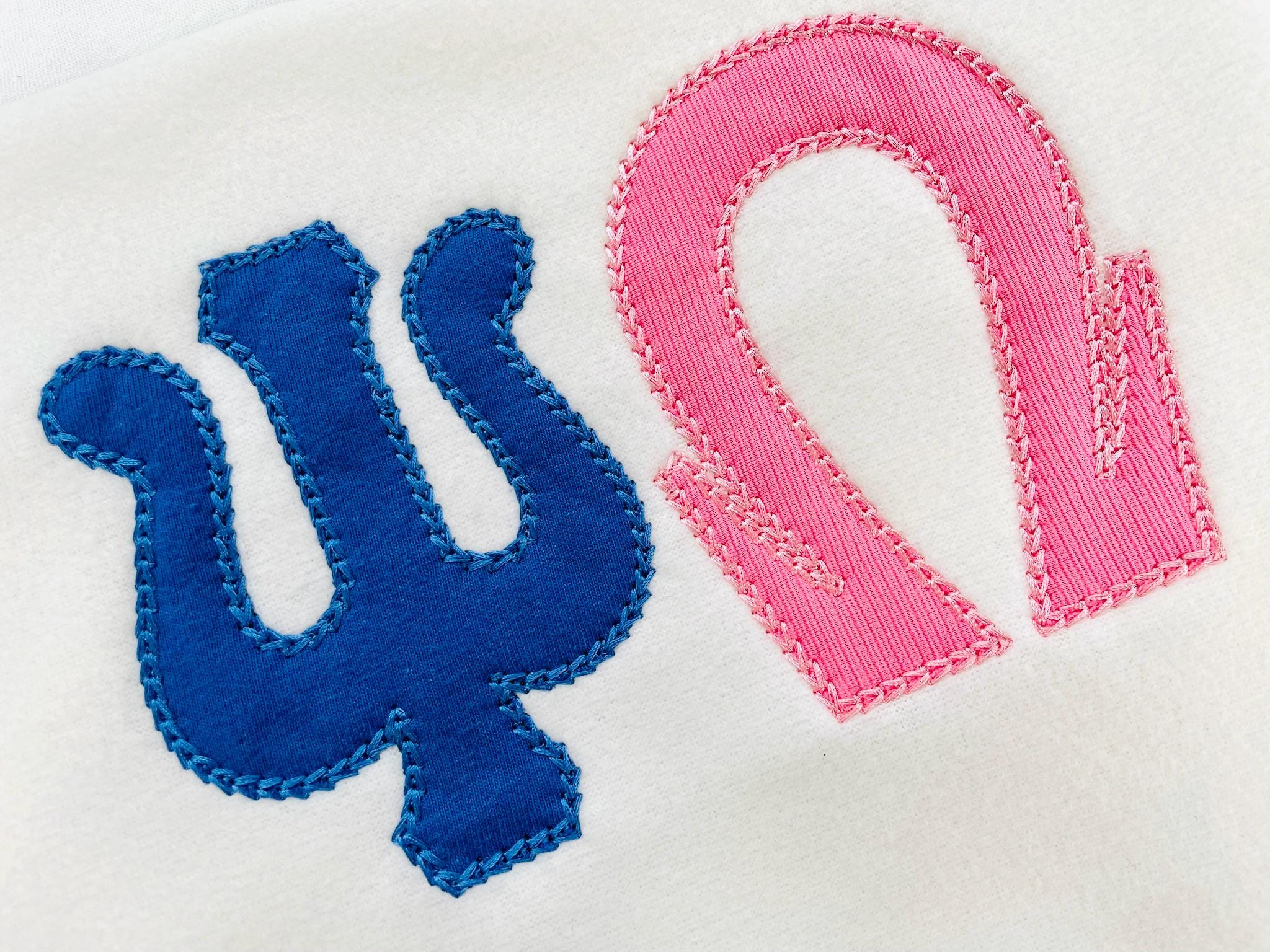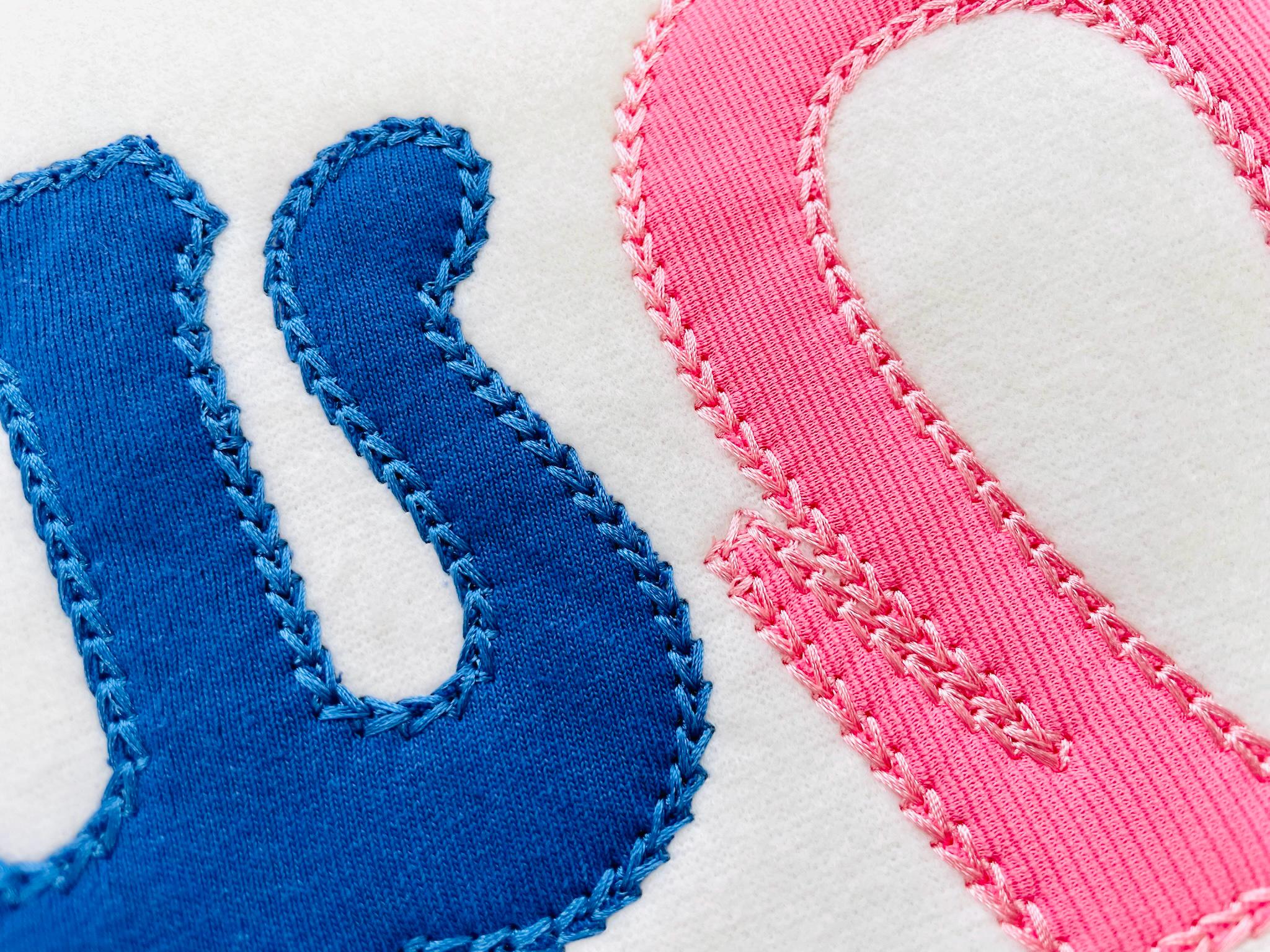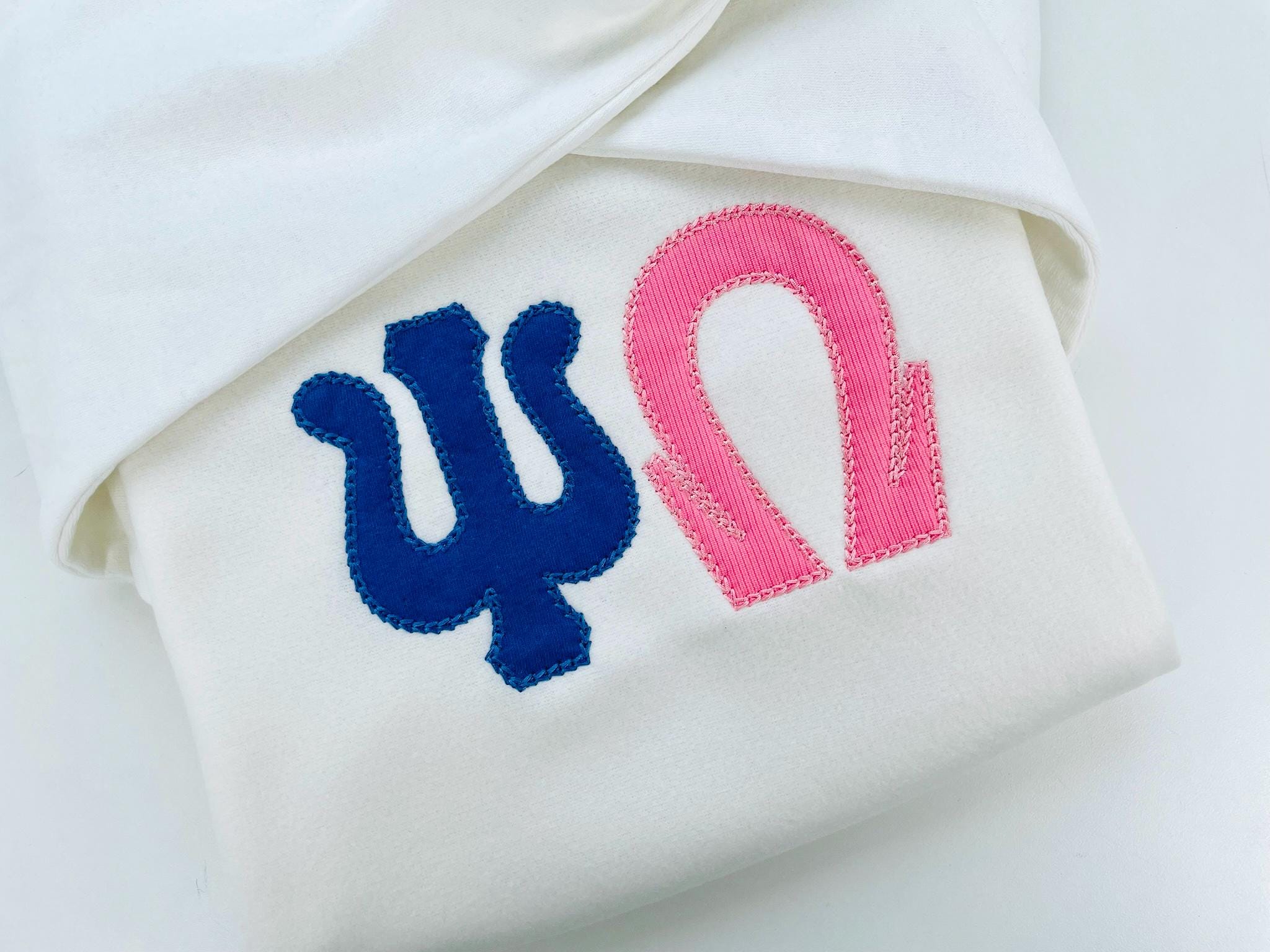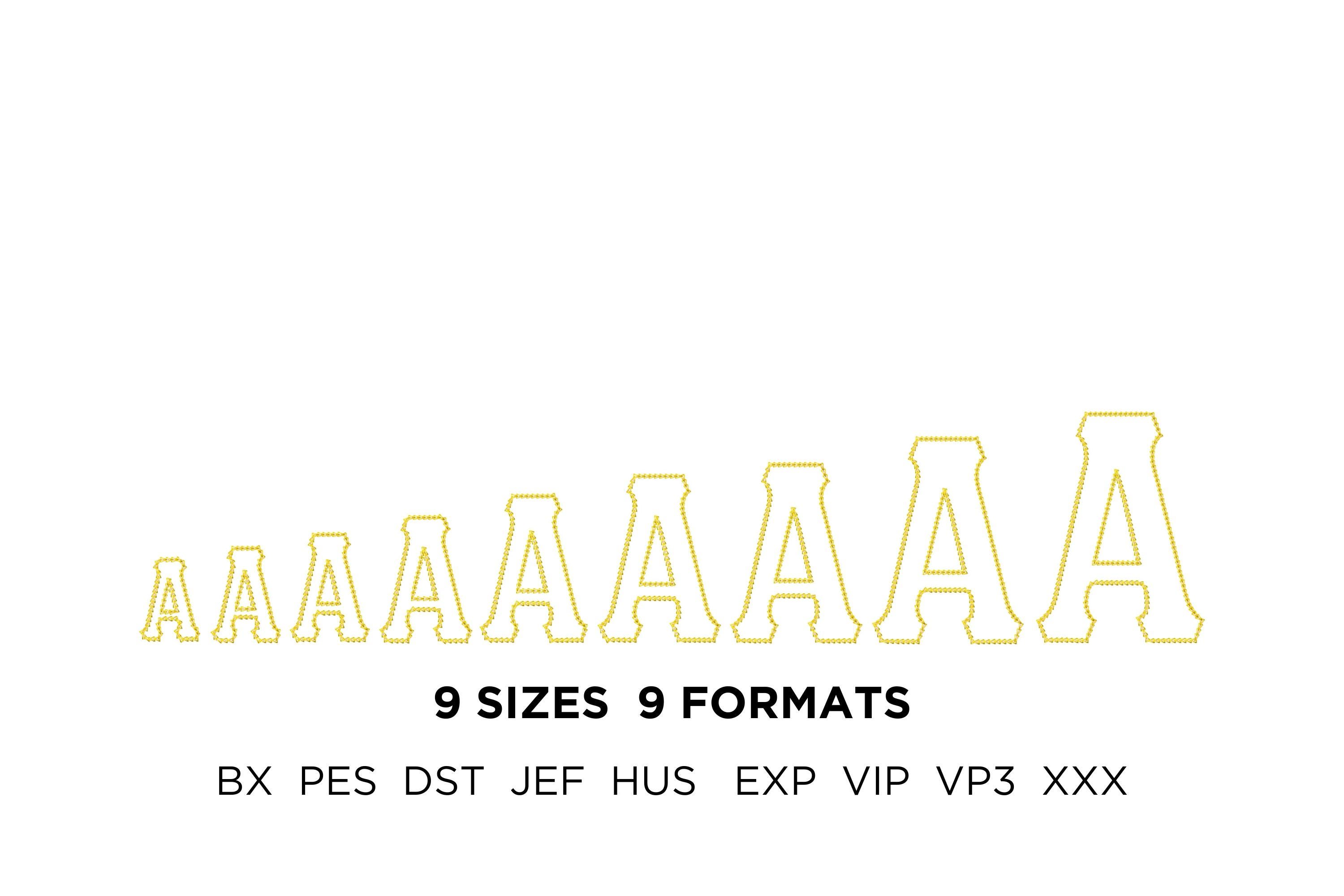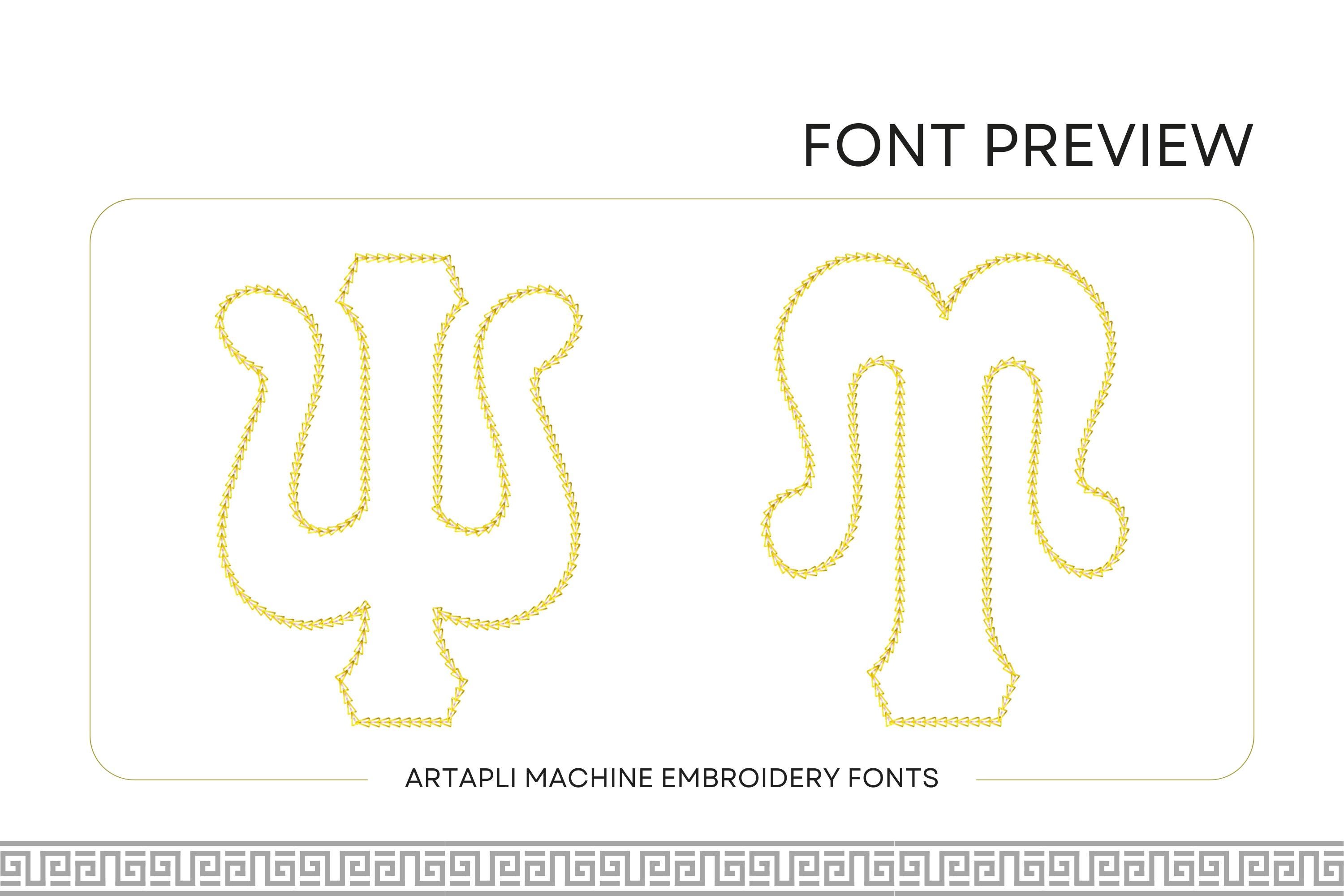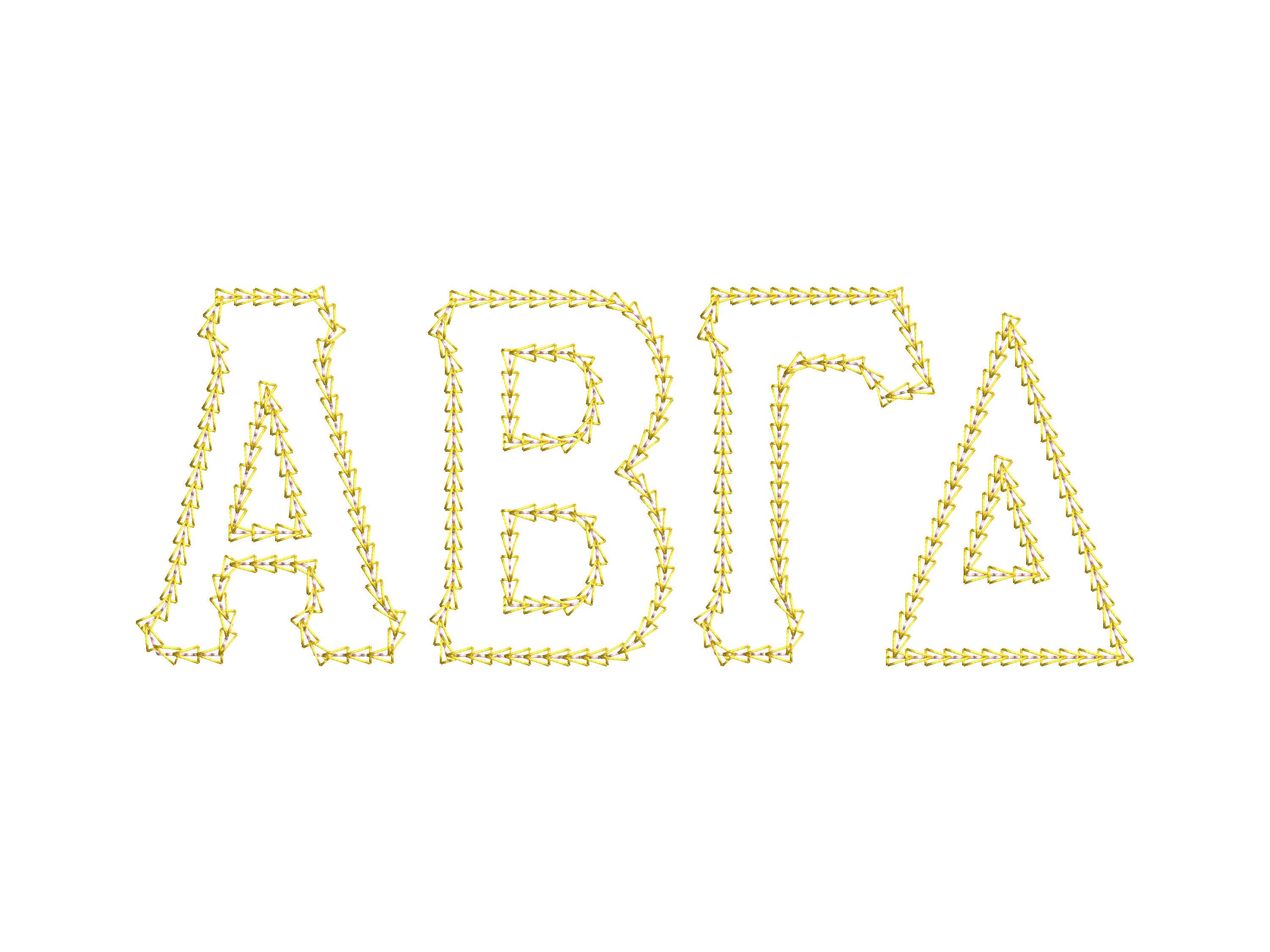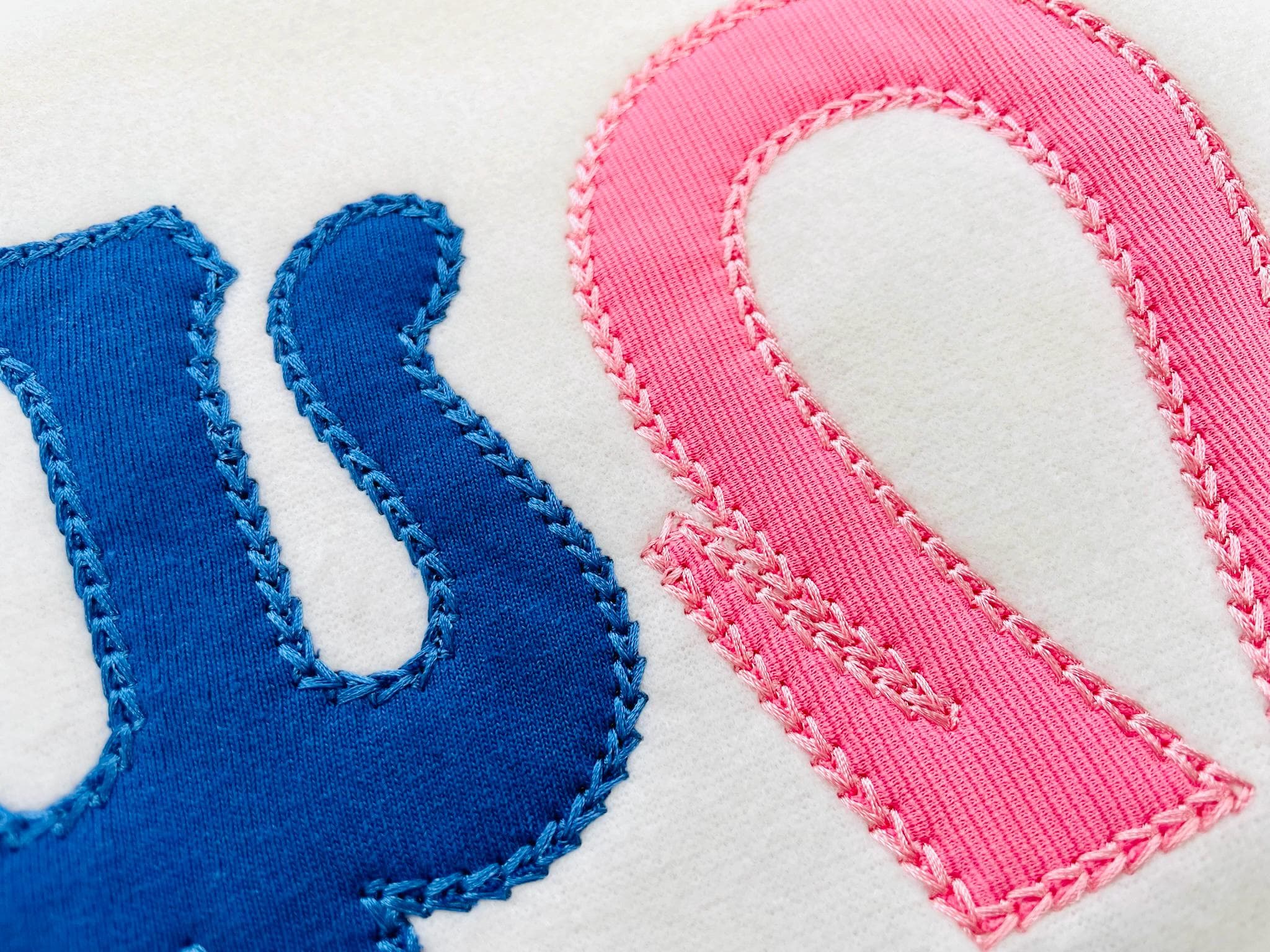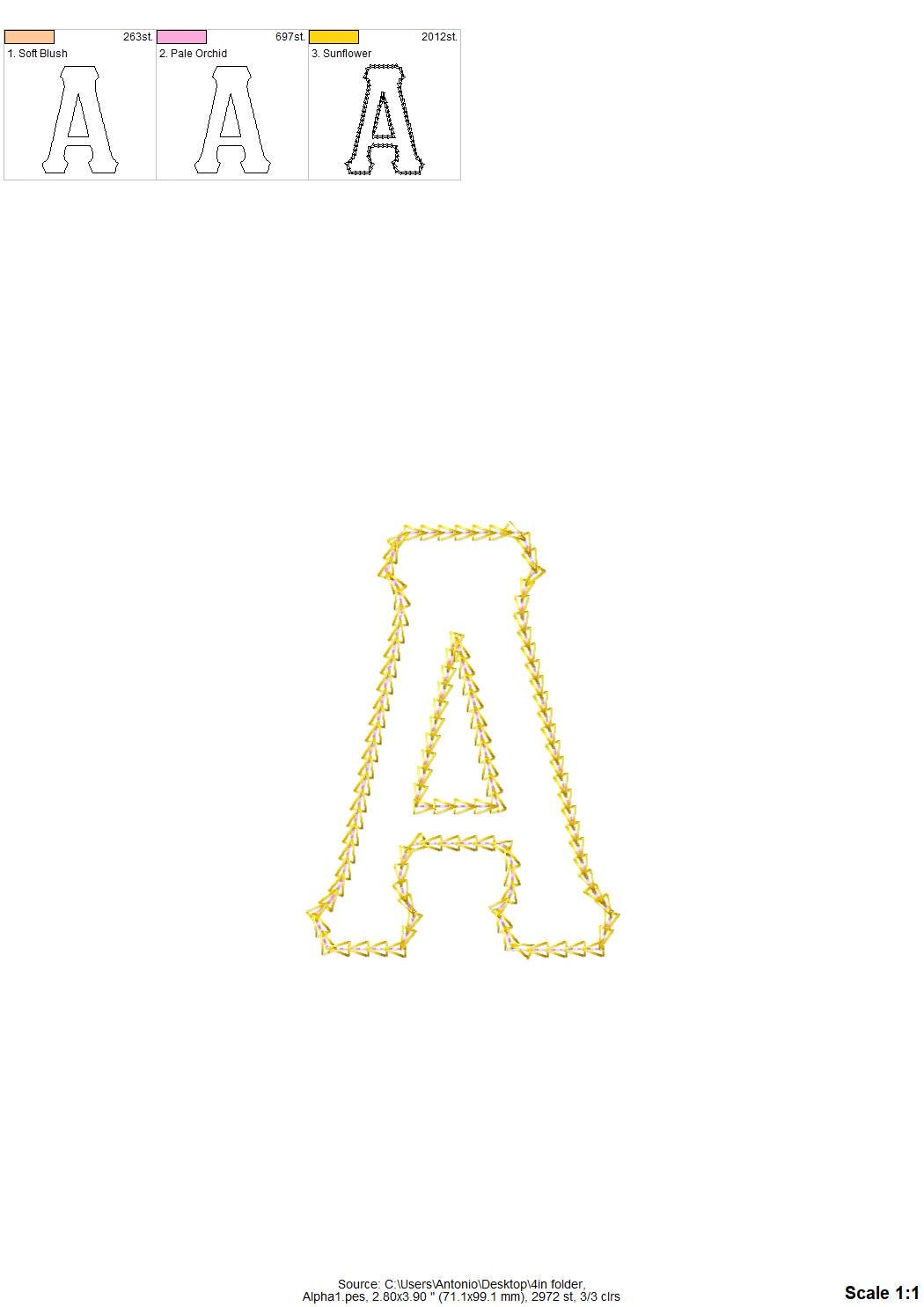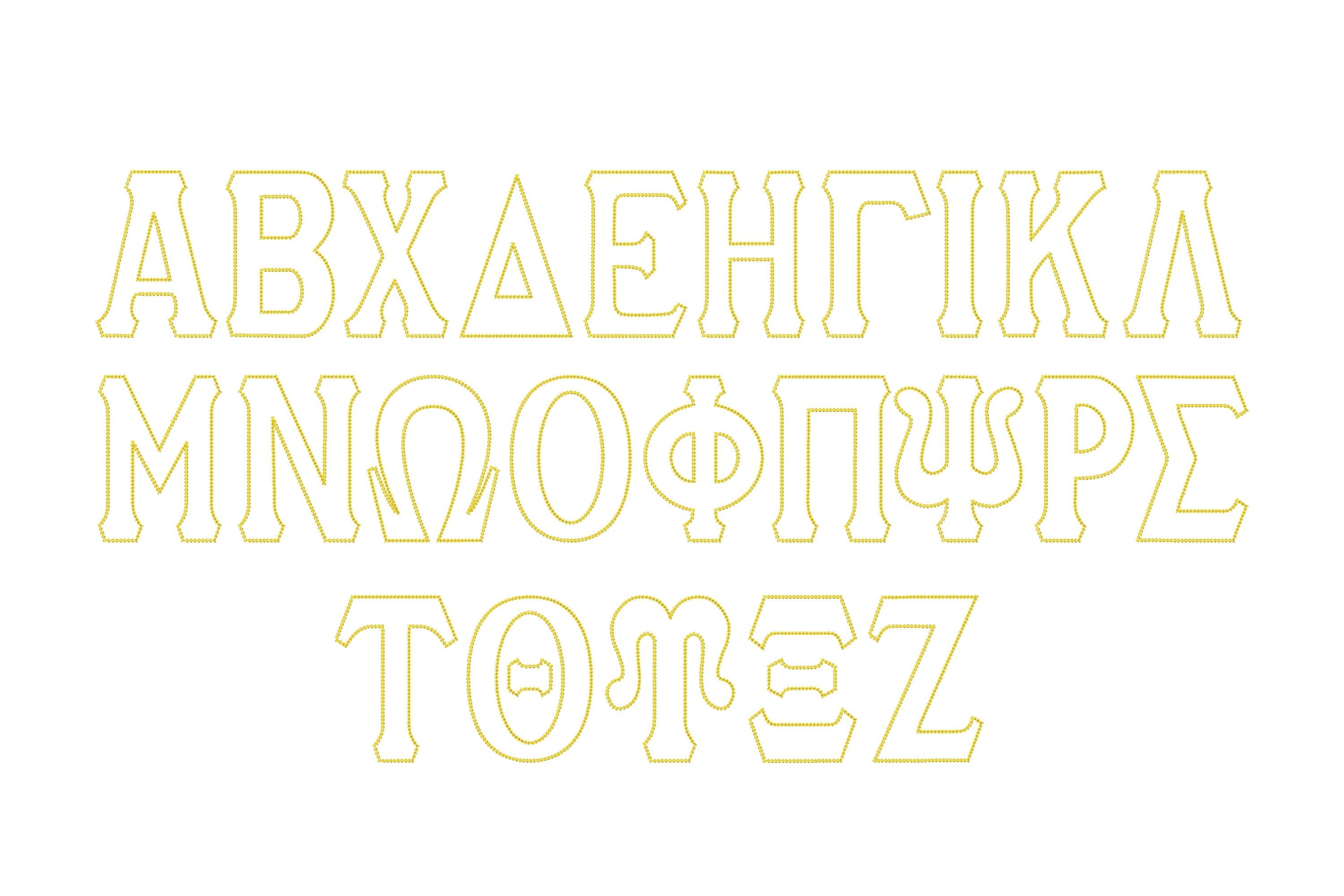
Greek Tall FONT Applique chain stitch outline Greek alphabet sororities monogram machine embroidery designs many sizes 2.6 up to 7 inch BX
Whole alphabet, 24 Greek letters.
Applique design, font has a chain stitch outline.